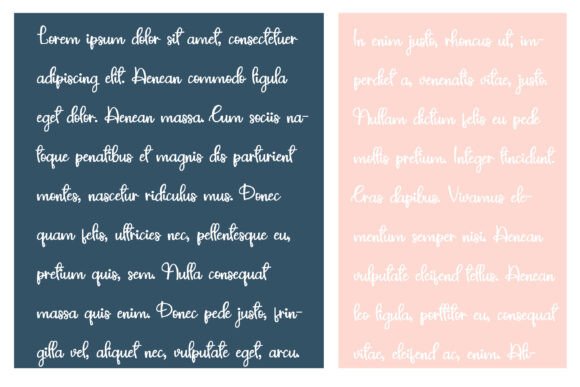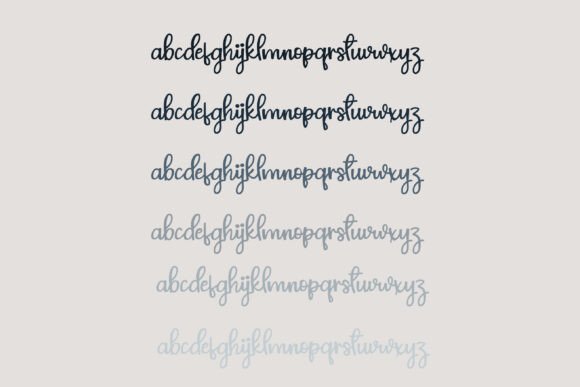
Betwixt Font
This hand-written script is a beautiful cursive with a hand-crafted quality.Bold and light version included.A hand-crafted font is a font that is designed to look like it was written by hand. It is often used for invitations, greeting cards, and other items. Handwritten fonts can be either formal or informal, and they can be used for a variety of purposes.